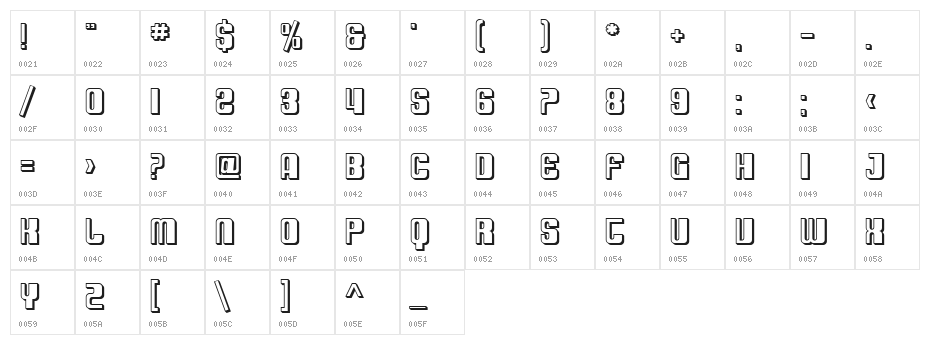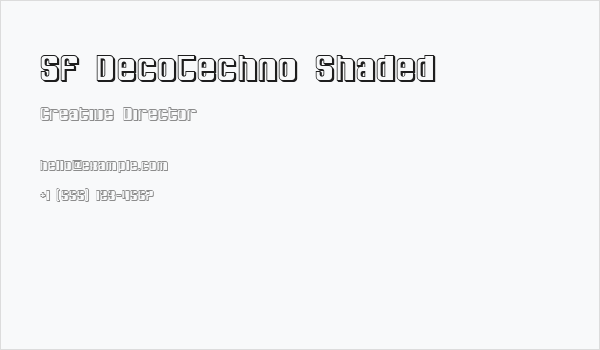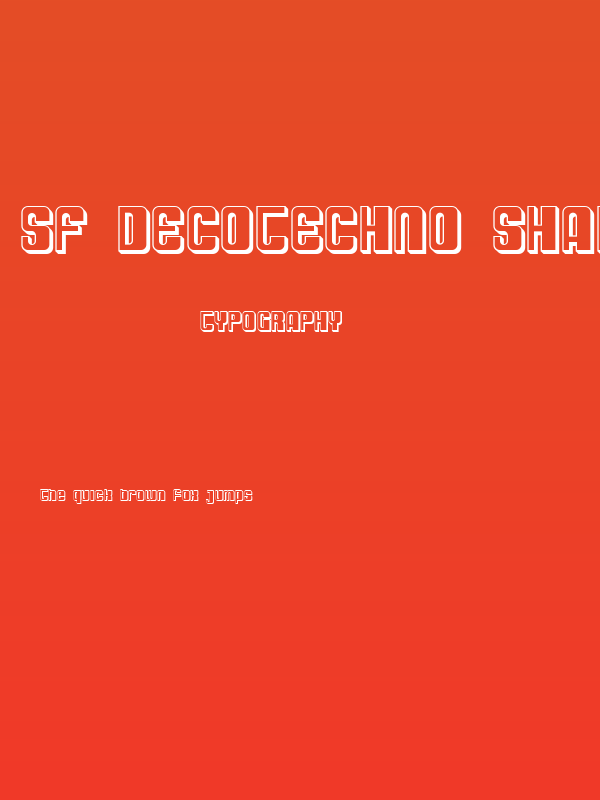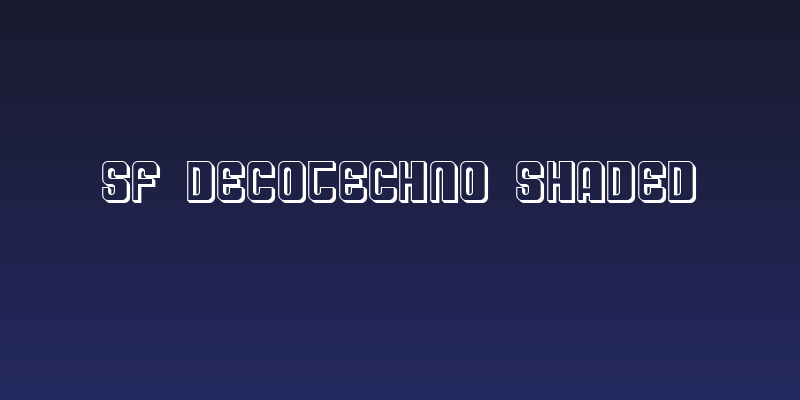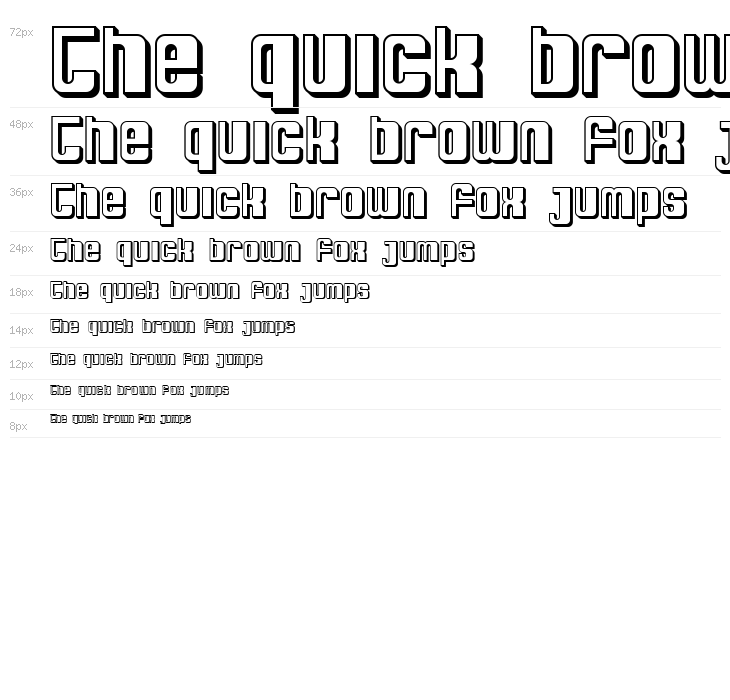
SF DecoTechno Shaded Font
SF DecoTechno Shaded Description
This font features a bold, geometric design with a distinct three-dimensional effect created by its shaded outlines. The characters are structured with a strong, angular form, giving them a futuristic and technological appearance. The uppercase and lowercase letters maintain a consistent style, with the lowercase being slightly more compact. Numbers and special characters are designed to match the boldness and style of the alphabet, ensuring a cohesive look across all text. The font's unique shading adds depth and dimension, making it stand out in any design project.
| Proposed Projects | Ideal for technology-themed posters, futuristic branding, video game titles, and sci-fi book covers. |